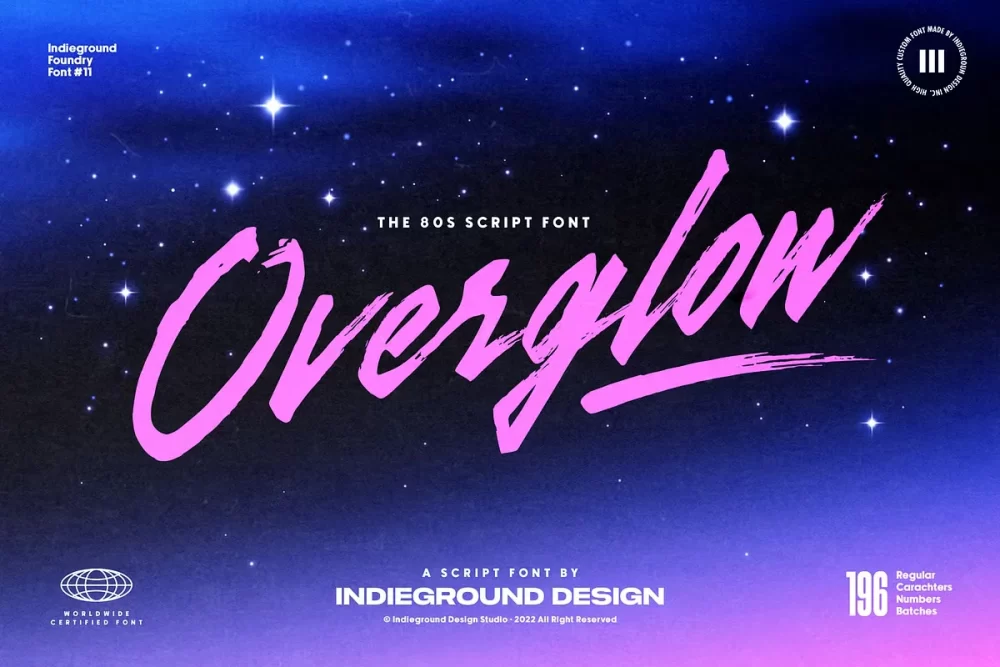
Overglow is an awesome calligraphic font with a retro taste was designed in collaboration with artist Alessandro Strickner aka Overglow! Designed specifically for artworks with an 80s and 90s atmosphere, this font is a perfect match for synthwave, vaporwave and aesthetic elements.
Ideal for titles and logotypes, Overglow is a versatile font that can be used in so many ways – thanks to its many ligatures, underlines and glyphs this is a multitasking font!
Overglow is a versatile font, ideal for recreating 80s and 90s atmospheres. We love it as it can be used in many different ways and it is a great choice for synthwave and vaporwave artworks.